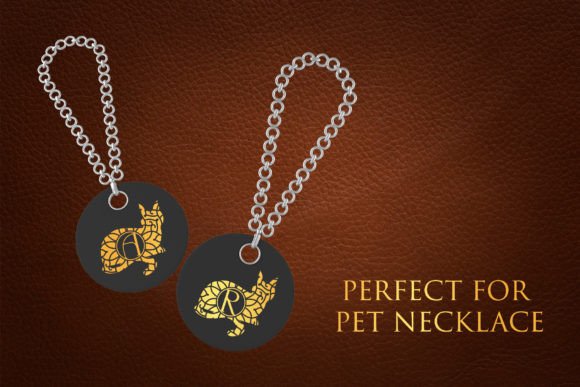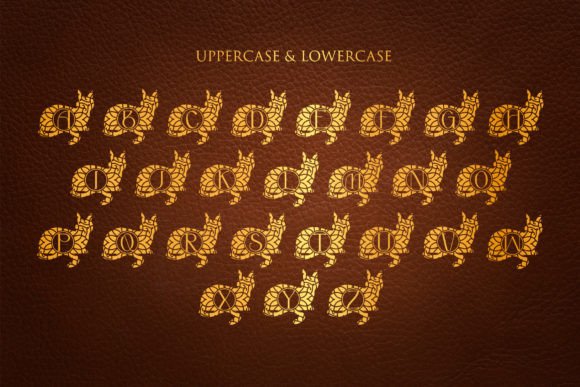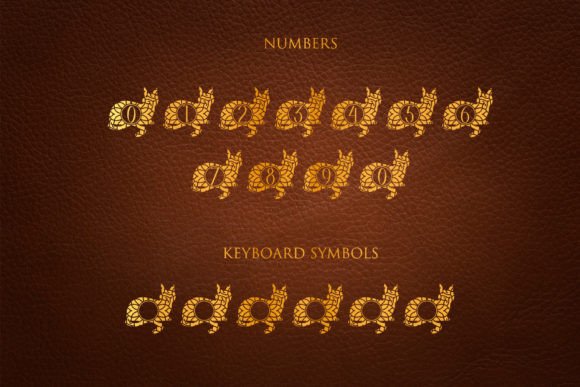
Introducing Amuse Cat Mandala Monogram Font: The Purrfect Choice for Cat Lovers
Are you a cat enthusiast looking for a unique and creative way to express your love for felines? Look no further than the Amuse Cat Mandala Monogram Font. This decorative typeface is specifically designed for cat lovers, and it’s the ultimate addition to any creative project dedicated to kittens. In this article, we’ll dive into the world of Amuse Cat Mandala Monogram Font and explore its features, benefits, and uses.
What is Amuse Cat Mandala Monogram Font?
Amuse Cat Mandala Monogram Font is a decorative typeface that combines the elegance of mandalas with the playfulness of cats. The font features intricate designs and patterns inspired by cat silhouettes, paws, and other feline elements. Each letter is carefully crafted to resemble a miniature mandala, making it a stunning addition to any design project.
Key Features of Amuse Cat Mandala Monogram Font
- Unique and Exclusive Design: The Amuse Cat Mandala Monogram Font boasts a one-of-a-kind design that’s sure to make your projects stand out from the crowd.
- Cat-Themed Elements: The font features adorable cat silhouettes, paws, and other feline-inspired elements that will delight cat lovers.
- Mandala-Inspired Patterns: The intricate patterns and designs in the font are inspired by traditional mandalas, adding an extra layer of elegance and sophistication.
- Multilingual Support: The font supports multiple languages, making it a versatile choice for designers and crafters worldwide.
Benefits of Using Amuse Cat Mandala Monogram Font
So, why should you choose Amuse Cat Mandala Monogram Font for your creative projects? Here are just a few benefits:
- Add a Personal Touch: The font’s unique design and cat-themed elements allow you to add a personal touch to your projects, making them more meaningful and special.
- Stand Out from the Crowd: With its exclusive design, Amuse Cat Mandala Monogram Font will help your projects stand out from the crowd and grab attention.
- Perfect for Cat Lovers: If you’re working on a project for a cat lover or a cat-related business, this font is a purrfect choice.
Use Cases for Amuse Cat Mandala Monogram Font
Amuse Cat Mandala Monogram Font is a versatile typeface that can be used in a variety of creative projects, including:
- Stationery and Invitations: Add a touch of elegance and whimsy to your stationery, invitations, and greeting cards.
- Branding and Packaging: Use the font to create eye-catching branding and packaging for cat-related businesses or products.
- Digital Art and Graphics: Incorporate the font into your digital art and graphics, such as illustrations, posters, and social media graphics.
- Crafting and Scrapbooking: Add a personal touch to your crafting and scrapbooking projects, such as photo albums, journal pages, and DIY decorations.
Tips for Using Amuse Cat Mandala Monogram Font
To get the most out of Amuse Cat Mandala Monogram Font, here are a few tips:
- Experiment with Colors: Try pairing the font with different colors and textures to create a unique and eye-catching effect.
- Mix and Match: Combine the font with other decorative elements, such as patterns, shapes, and illustrations, to add depth and interest.
- Keep it Simple: Don’t be afraid to use the font on its own – its intricate design and patterns can make a statement on their own.